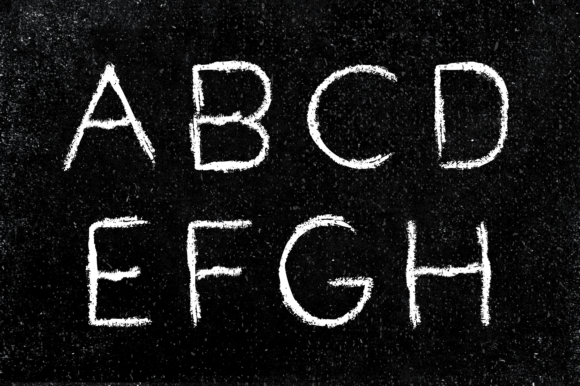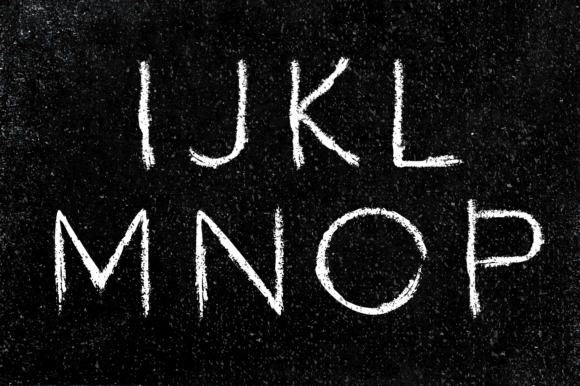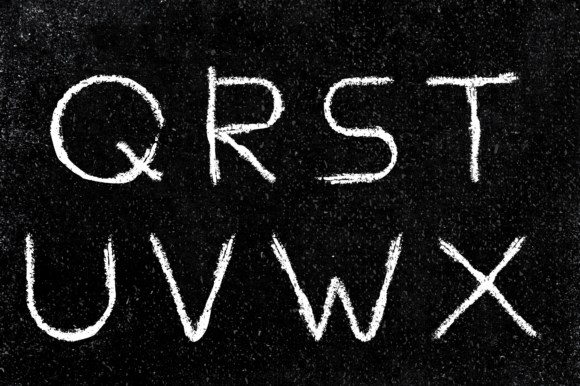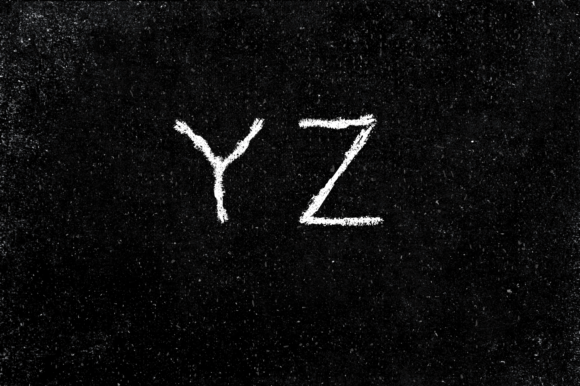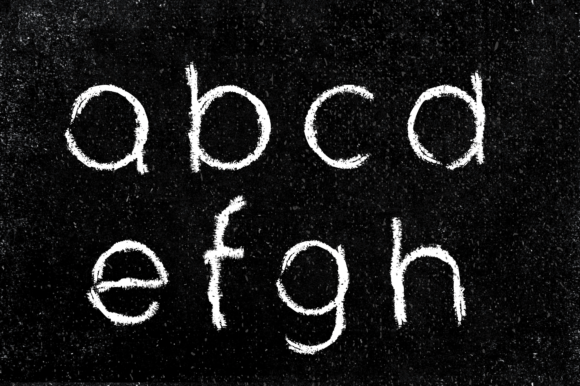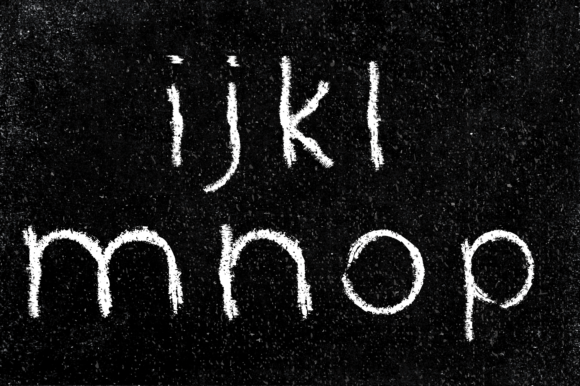
Bring Your Designs to Life with the Chalk Font
Have you ever been in the midst of a creative project, struggling to find the perfect font to bring your vision to life? Perhaps you’re designing a poster for a summer concert, a chalkboard sign for a trendy café, or a logo for a children’s art studio. Whatever your project, you know that the right font can make all the difference.
That’s where the Chalk Font comes in – a unique and versatile digital font designed to evoke the look and feel of traditional chalk. With 62 glyphs at your disposal, you’ll be able to add a touch of whimsy and personality to any design project. Whether you’re a seasoned designer or just starting out, the Chalk Font is an invaluable tool for anyone looking to add a little extra magic to their work.
- Unique Characteristics: Chalk Font is known for its distressed, vintage aesthetic, with features such as uneven letterforms, subtle texture, and a worn, weathered look.
Chalk Font Review
When I first saw Chalk Font, I was immediately drawn to its playful, handwritten feel. ✨ The subtle imperfections and varying line widths give it a unique, hand-crafted look that’s perfect for creative projects or branding.
- ✨ Unique, handwritten feel that’s perfect for creative projects or branding.
- ✨ Highly customizable, with plenty of options for adjusting font size, color, and style.
- ✨ Supports a wide range of languages, making it a great choice for global projects.
- ⚠️ May not be suitable for formal or professional projects where a more traditional font is required.
- ⚠️ Can be difficult to read in smaller sizes or when used in certain color combinations.
- ⚠️ May not be as versatile as some other fonts, limiting its use in certain design contexts.
Overall, I think Chalk Font is a great choice for designers looking for a unique, creative font. While it may not be suitable for every project, it’s perfect for those who want to add a touch of personality and whimsy to their designs.
Some popular use cases for the Chalk Font include:
– Creating a vintage or distressed look for marketing materials or social media graphics.
– Adding a whimsical touch to educational materials or children’s content.
– Creating a unique and eye-catching title or heading for a presentation or document.